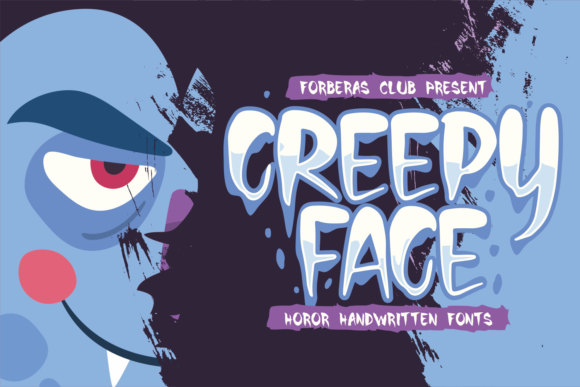
Get Ready to Unleash Your Spooky Side with Creepy Face Font
As a designer, have you ever been brainstorming a project and suddenly a spark of creativity strikes? Maybe it’s a client’s request, or a personal challenge, but whatever it is, it sets your imagination running wild. That’s exactly what happened when we stumbled upon the Creepy Face Font – a font that’s equal parts cool and spooky, perfect for adding a dash of Halloween magic to your designs.
This versatile display font is designed to be a game-changer for your next Halloween project or October party. With its unique, eerie charm, Creepy Face Font can be used in a variety of creative ways, limited only by your imagination. Whether you’re a seasoned designer or just starting out, this font is sure to add a touch of personality to your work.
Creepy Face Font Key Features
- Font Family: Creepy Face is a unique, hand-drawn font designed to evoke a sense of eeriness and unease.
- Size: The font is available in a single size, with no scalability options, which adds to its unique, hand-drawn feel.
- Characters: Includes a wide range of characters, including uppercase and lowercase letters, numbers, and special characters, making it a versatile font for various design applications.
- Unique Characteristics: The font’s distinctive, hand-drawn style and irregularities give it a creepy, unsettling feel that’s perfect for horror-themed designs, titles, and headings.
Designer Review: Creepy Face Font
Overall, I think the Creepy Face Font is a unique and attention-grabbing choice for designers looking to add a touch of eeriness to their projects. ✨ Here are a few things that stand out to me:
- Expressive and emotive characters: The font’s bold, hand-drawn feel makes it perfect for conveying a sense of unease or tension.
- Customization options: The font’s open-source nature means that designers can easily tweak and modify it to suit their needs.
- Fun and quirky vibe: The Creepy Face Font is a great choice for designers who want to add a touch of personality to their work.
- Limited language support: The font may not be suitable for designs that require a wide range of languages.
- No standard font metrics: The font’s custom design may make it difficult to use in certain contexts, such as in print or digital signage.
Overall, I think the Creepy Face Font is a great choice for designers who want to add a touch of creepiness to their work. While it may not be suitable for every project, it’s definitely worth considering for designs that require a bold, emotive font.
The Creepy Face Font is perfect for creating spooky and eerie designs, such as:
- Haunted house invitations
- Spooky social media posts
- Creepy Halloween graphics